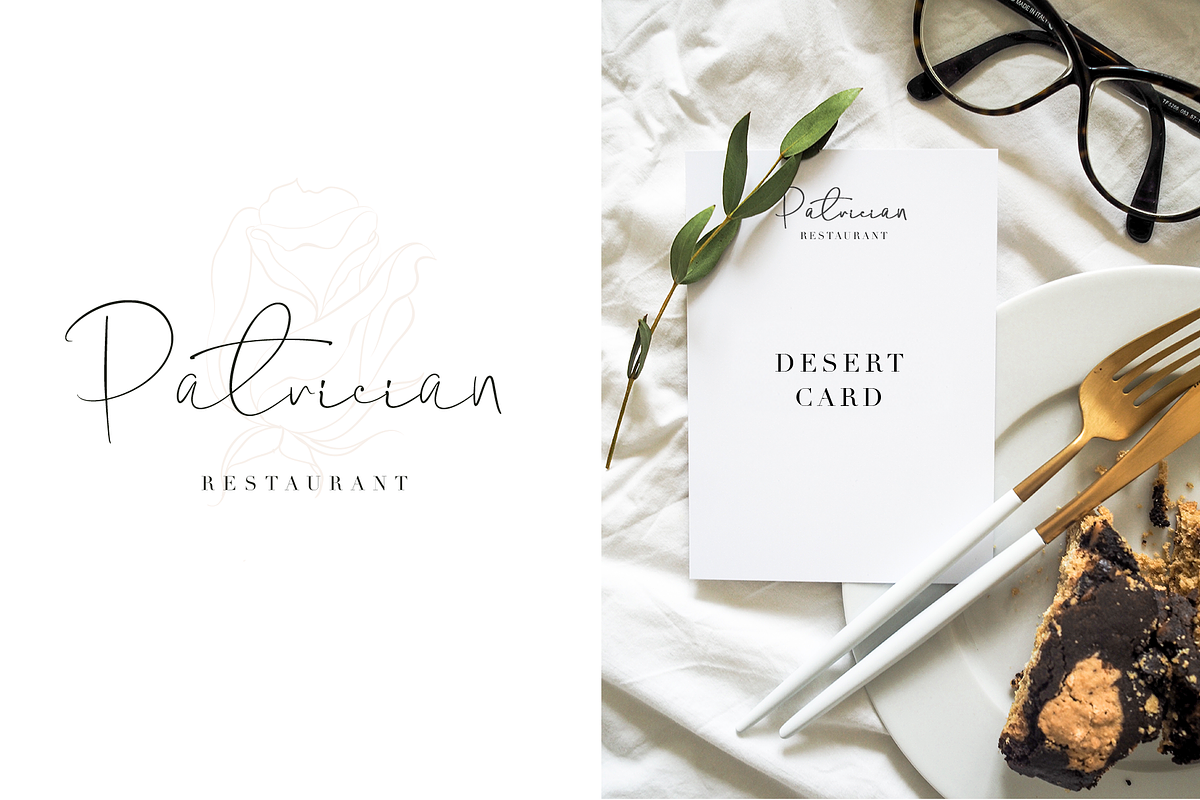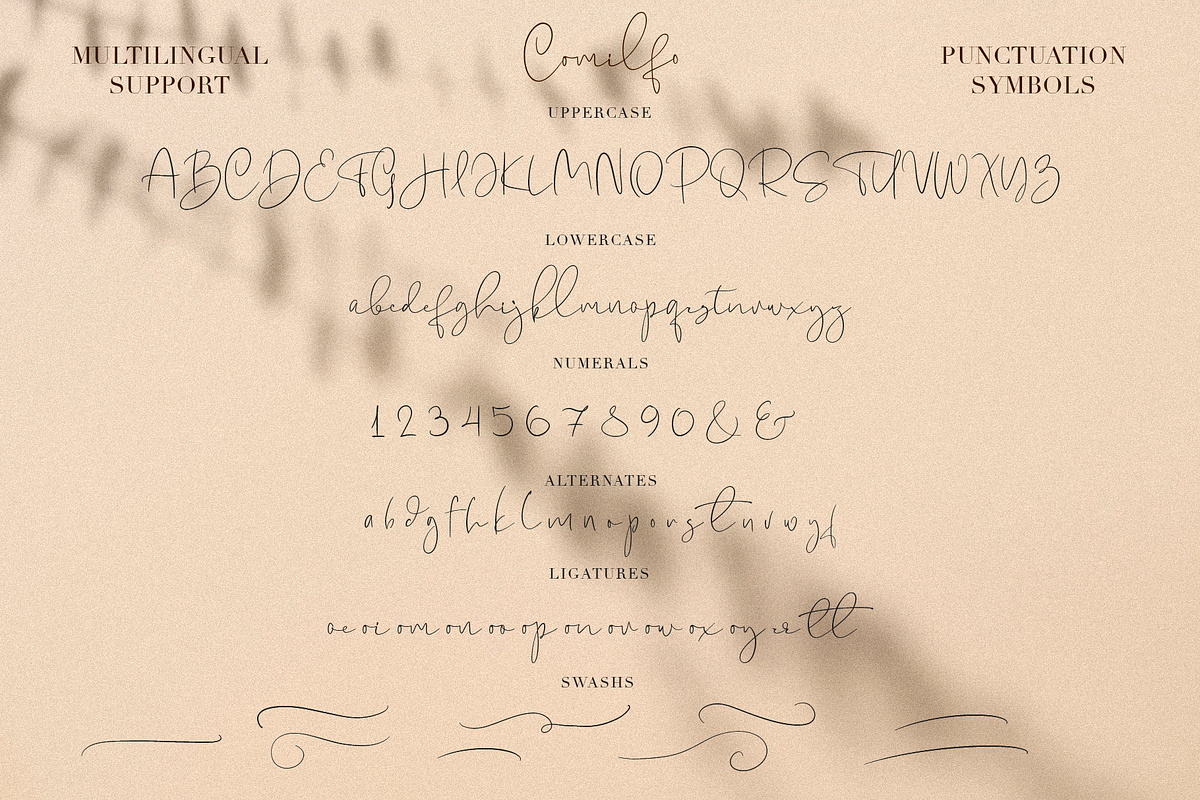
Comilfo
COMILFO this amazing handwritten font is light and elegant, will emphasize your personality in any project and will charm you with its signature. This font includes alternates, ligatures, and swashes. You can use it to create logos, branding, t-shirts, book covers, stationery, marketing, blogs, magazines, cosmetics, signage, and more. This font is easy to use, has indicator functions, and supports PUA encoding.
Following international symbols support: ÀÁÂÃÄÅĄÇĆÈÉÊËĘÌÍÎÏÐÑŃŁÒÓÔÕÖØÙÚÛÜŚŠŸÝŹŻŽßàáâãäåçèéêëìíîïðñòóôõöøùúûüýÿąćęłńśšźżž
Full alphabet with Uppercase and Lowercase A-z
Numbers, fractions
Punctuation and symbols
Swashes